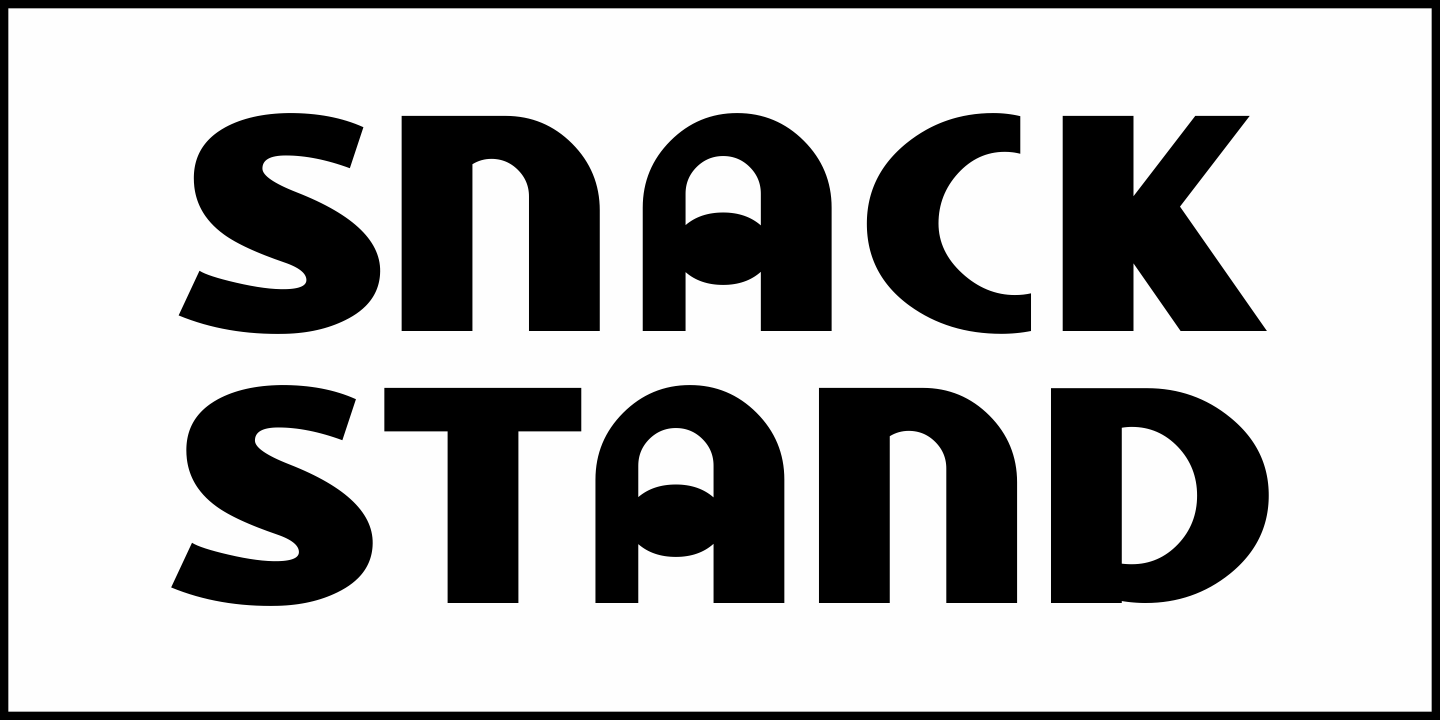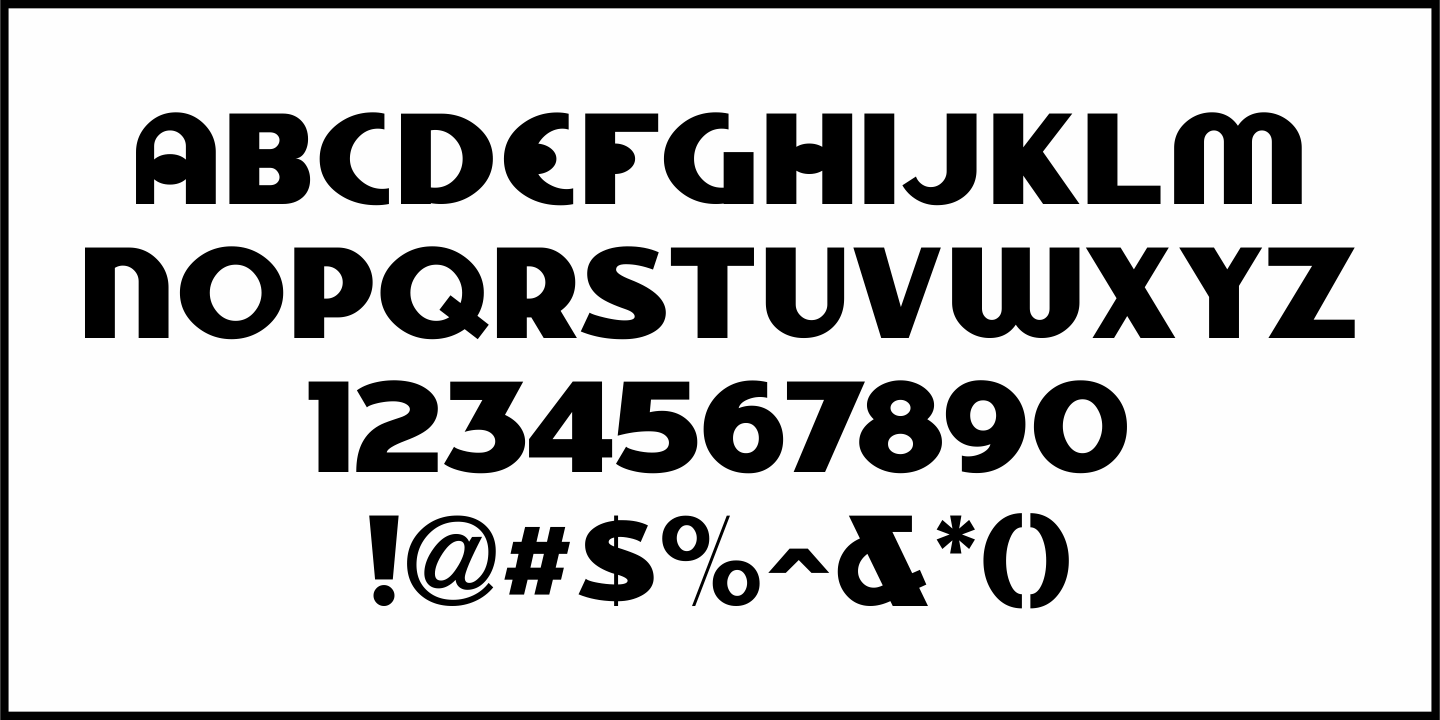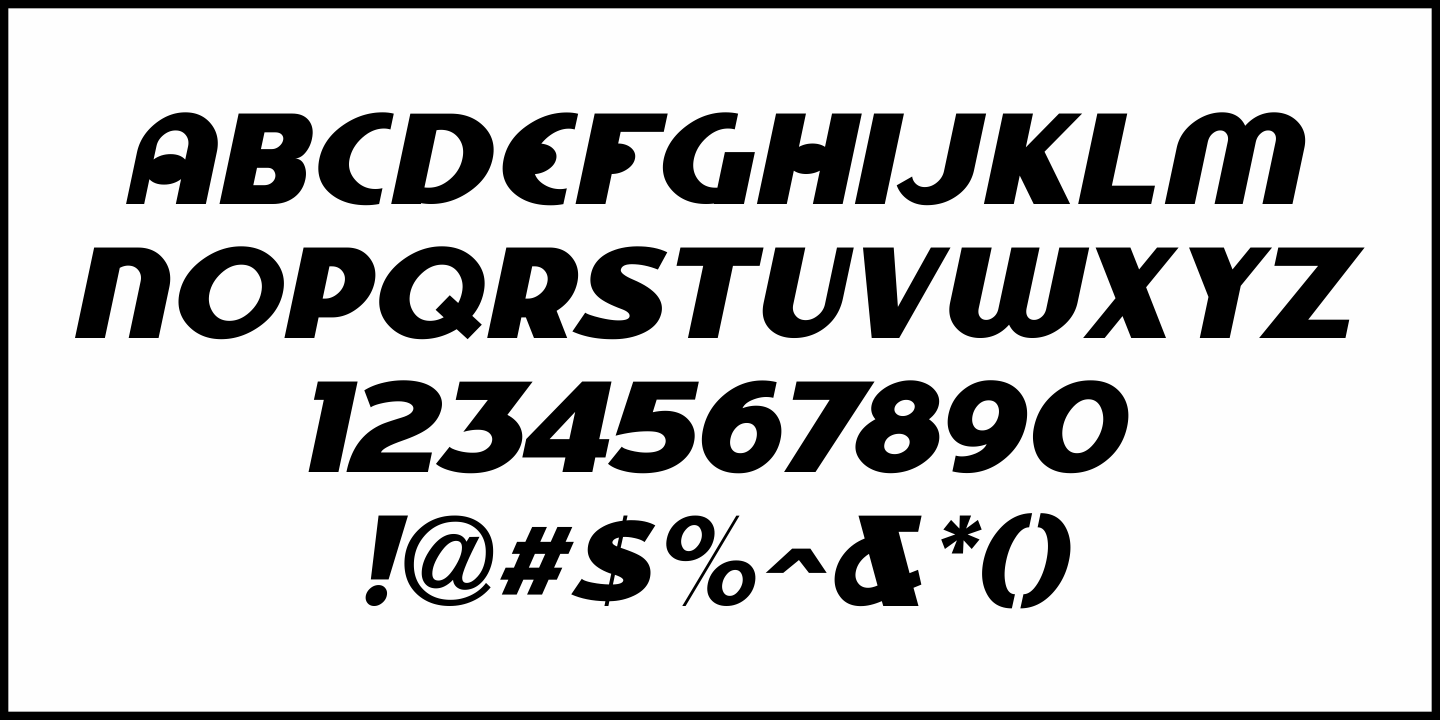
Snack Stand
A 1940s film taken around Coney Island happened to show a sandwich vendor's stand with its hand painted signs.
The stylized Art Deco lettering inspired Snack Stand JNL, which is available in both regular and oblique versions.
Snack Stand JNL Regular by Jeff Levine Fonts